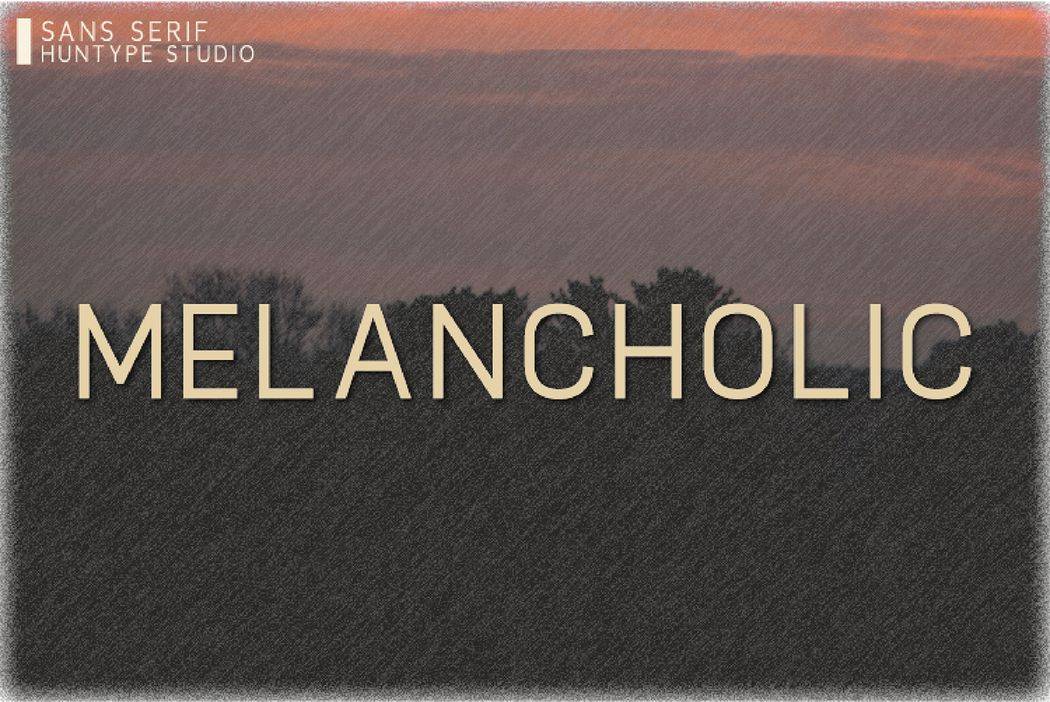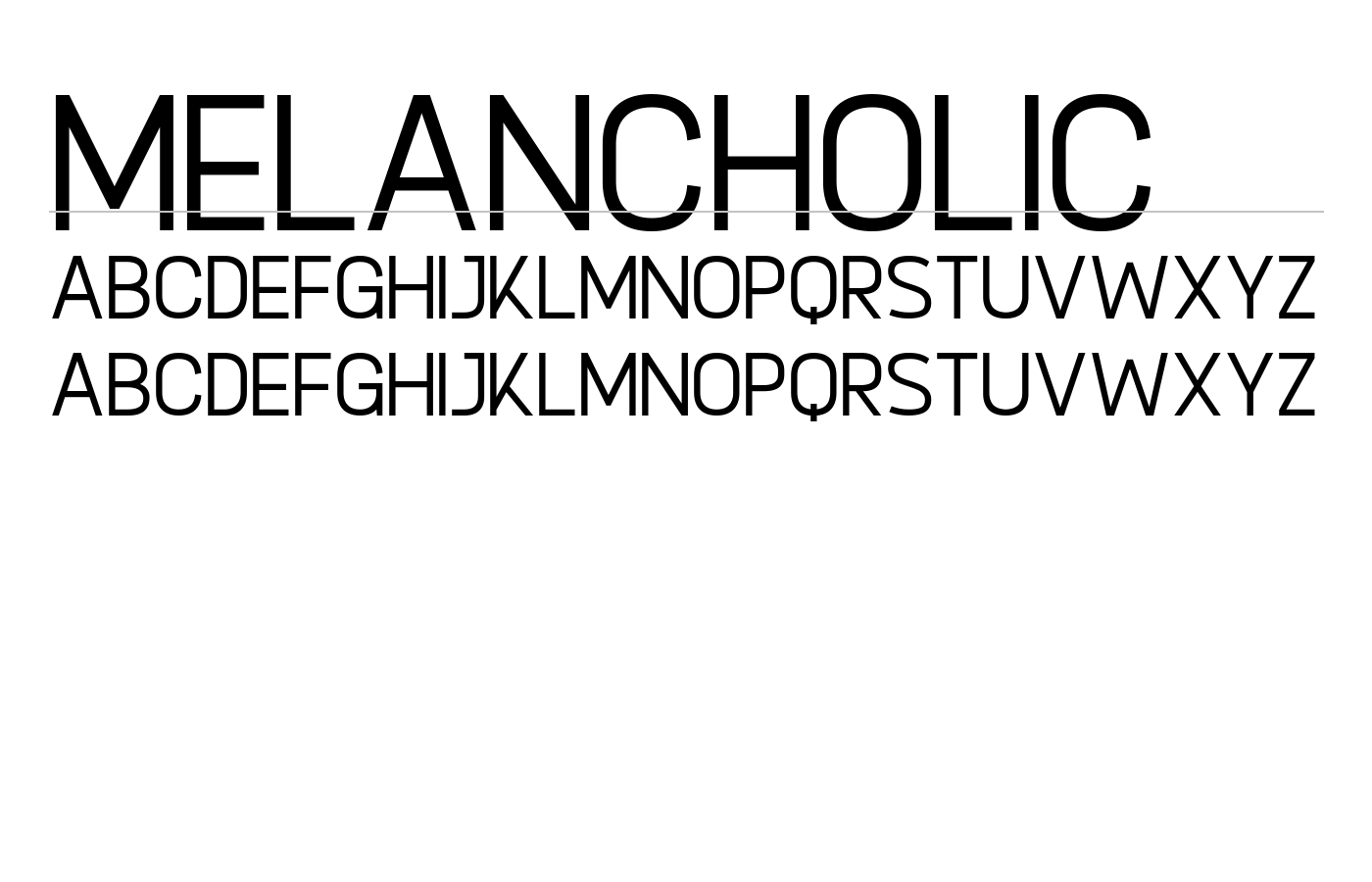
Melancholic is a sleek, modern sans serif font characterized by its tall, narrow letterforms and low stroke contrast, giving it a refined yet understated appearance. Its clean, geometric lines and uniform weight create a contemporary, professional vibe that works well for editorial headlines, branding, and digital interfaces where clarity and elegance are key. This font’s minimalist style and crisp structure make it ideal for projects aiming for a sophisticated and modern look without unnecessary embellishment.
Melancholic Font
About Melancholic Font